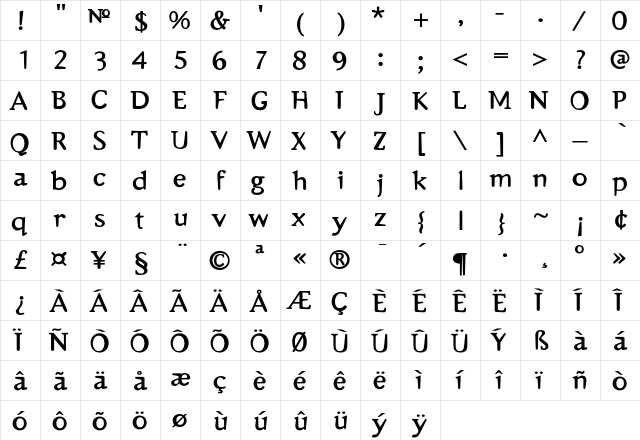
Emulate Serif-Bold
Design Context for Emulate Typeface
Emulate brings classic typographic sensibility to the table — its serifs and measured letterforms reflect centuries of print heritage. Its bold stroke weight gives it real presence on the page.
Pro Tip: Set Emulate with slightly loose tracking in headlines to let each letterform's detail read clearly at display sizes.